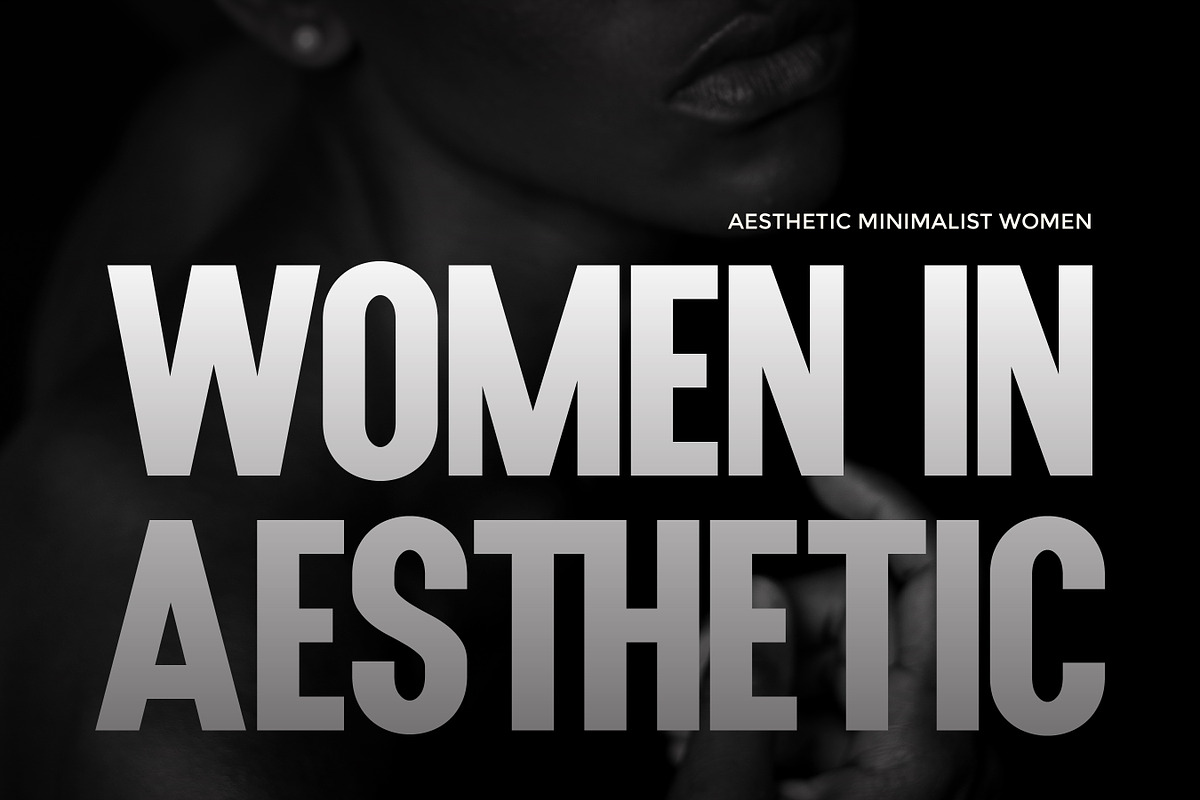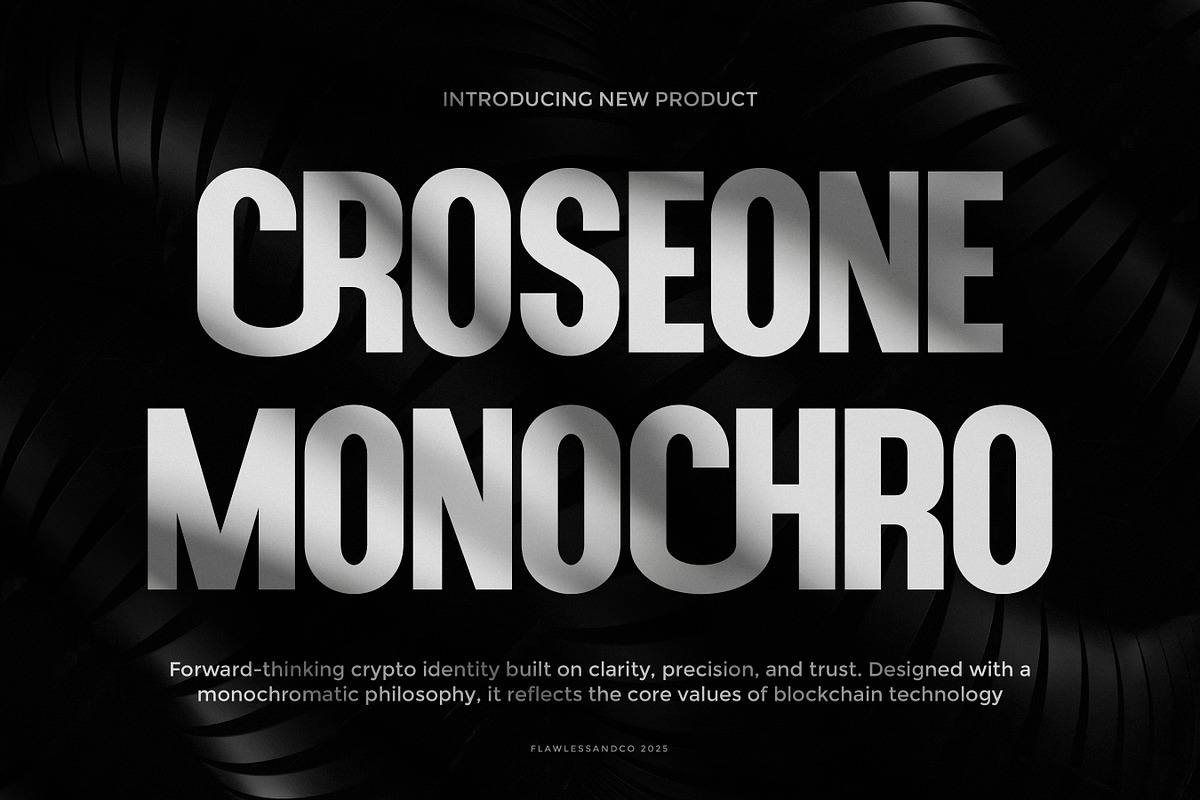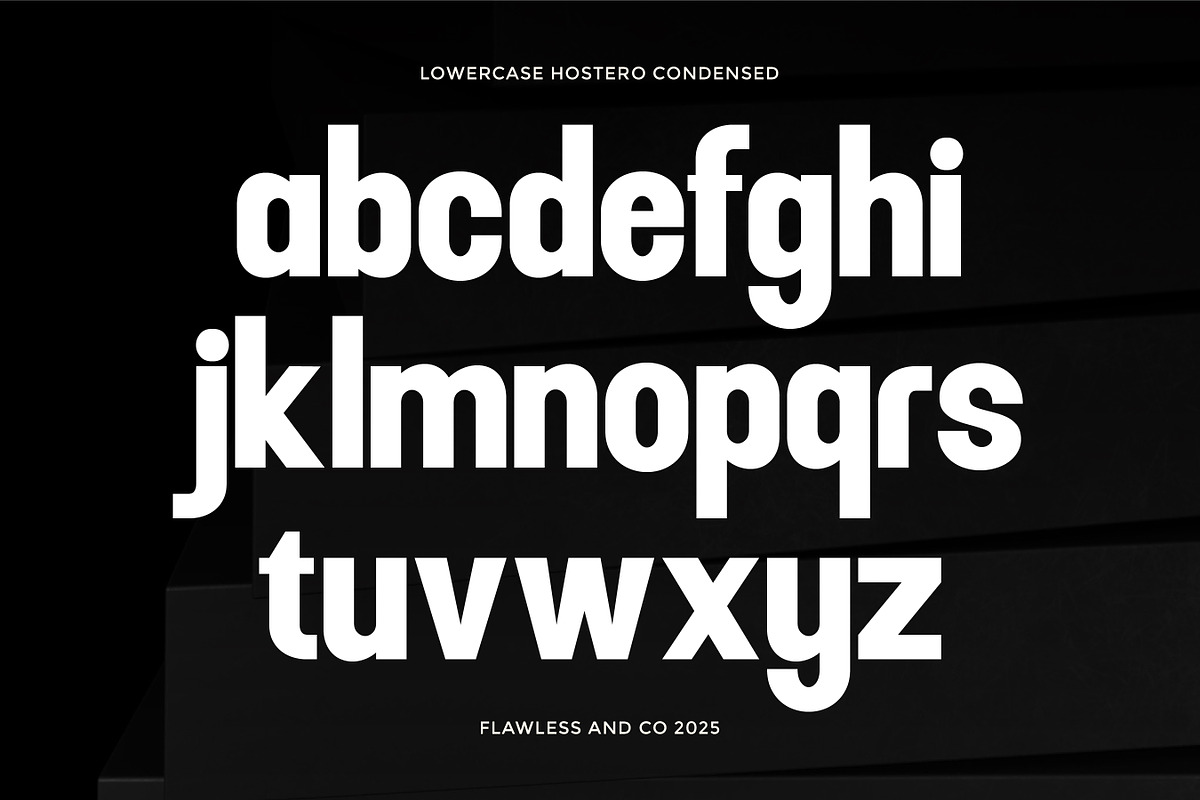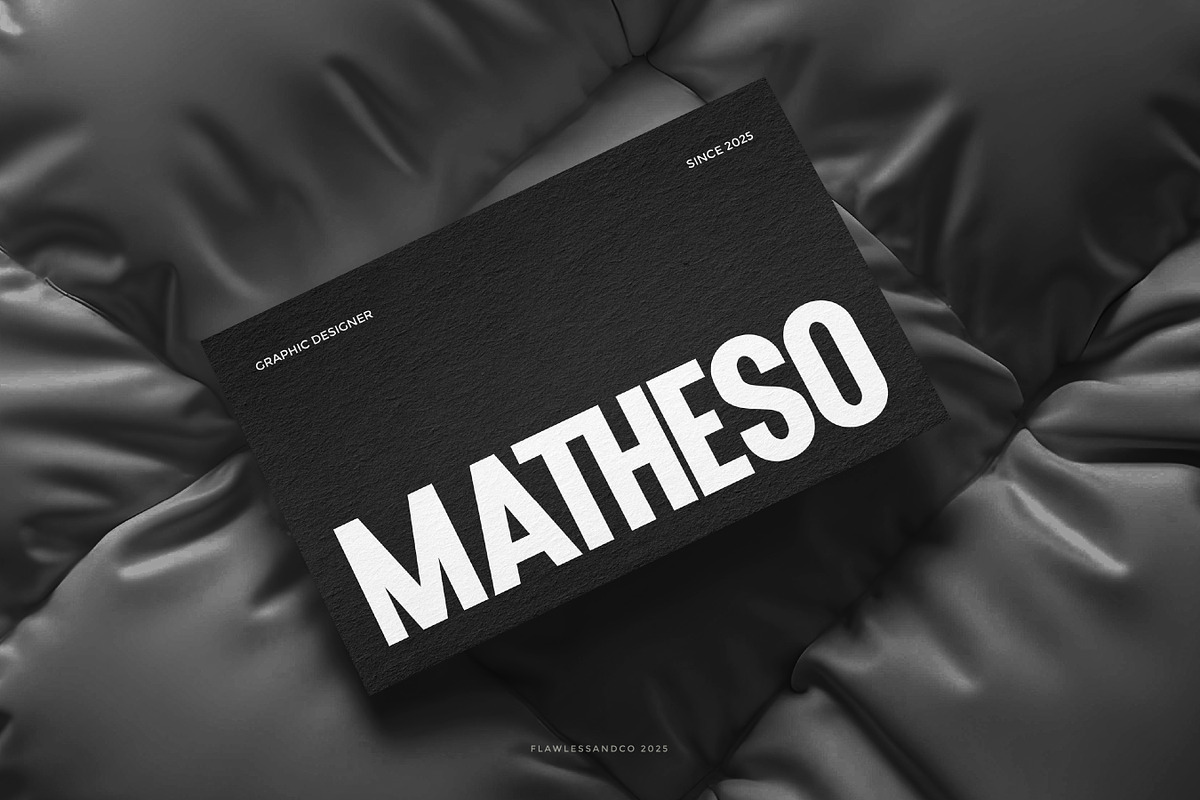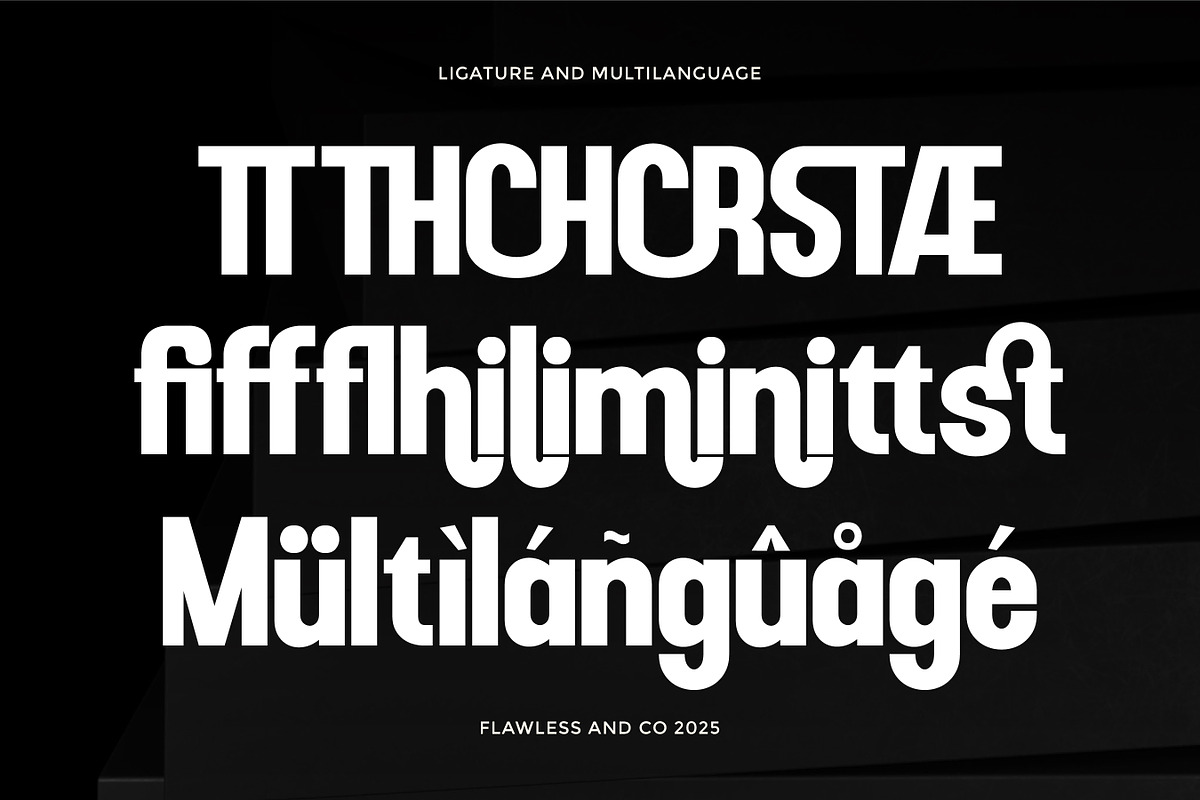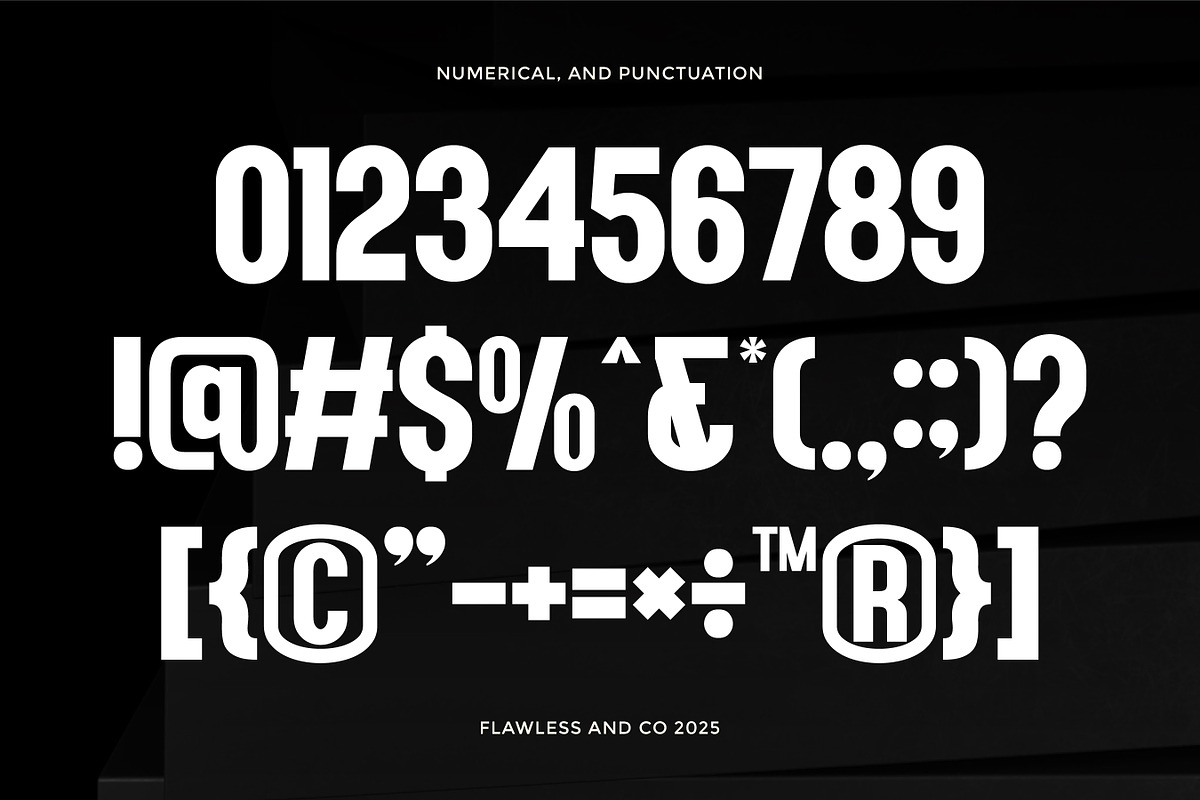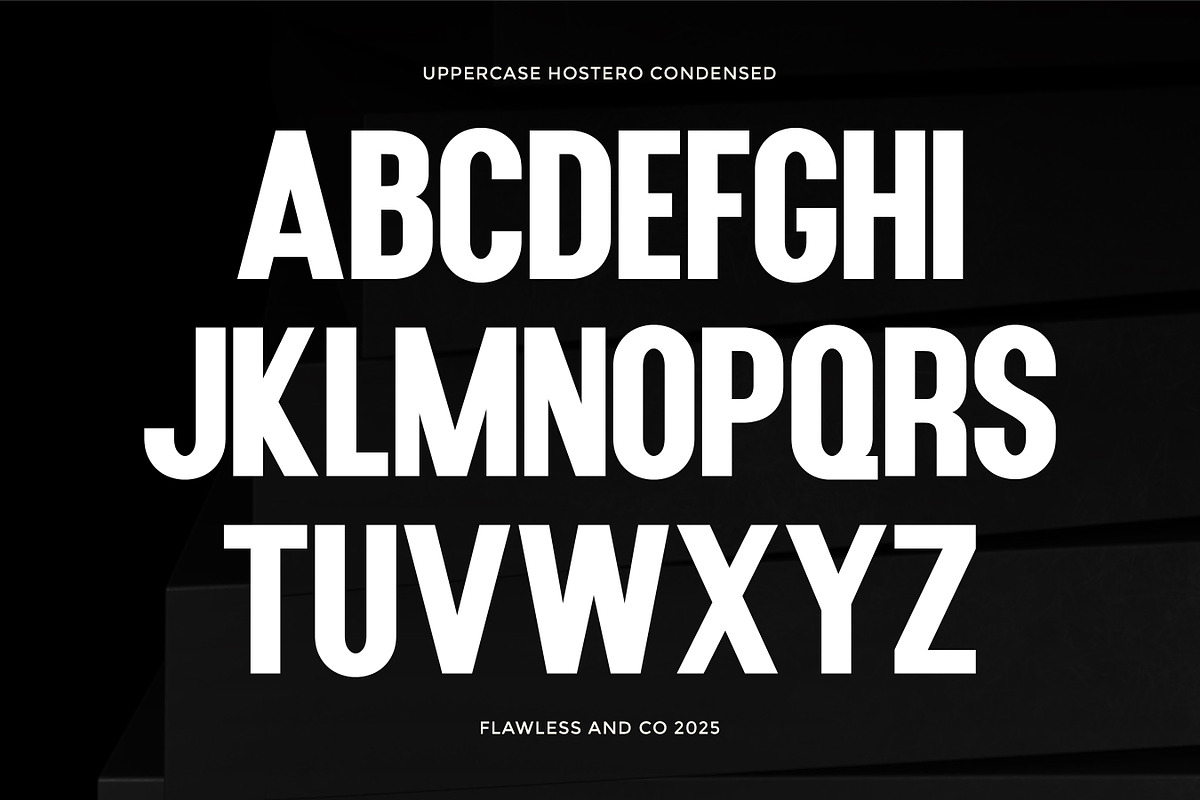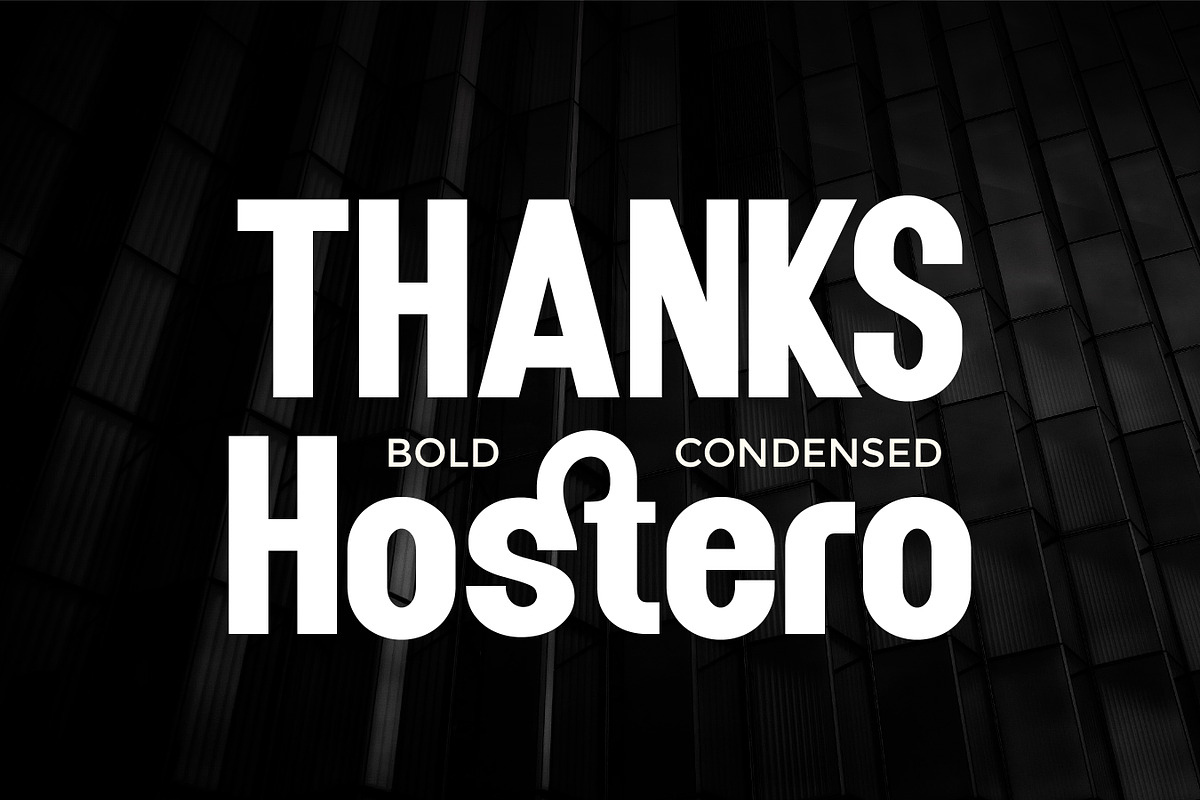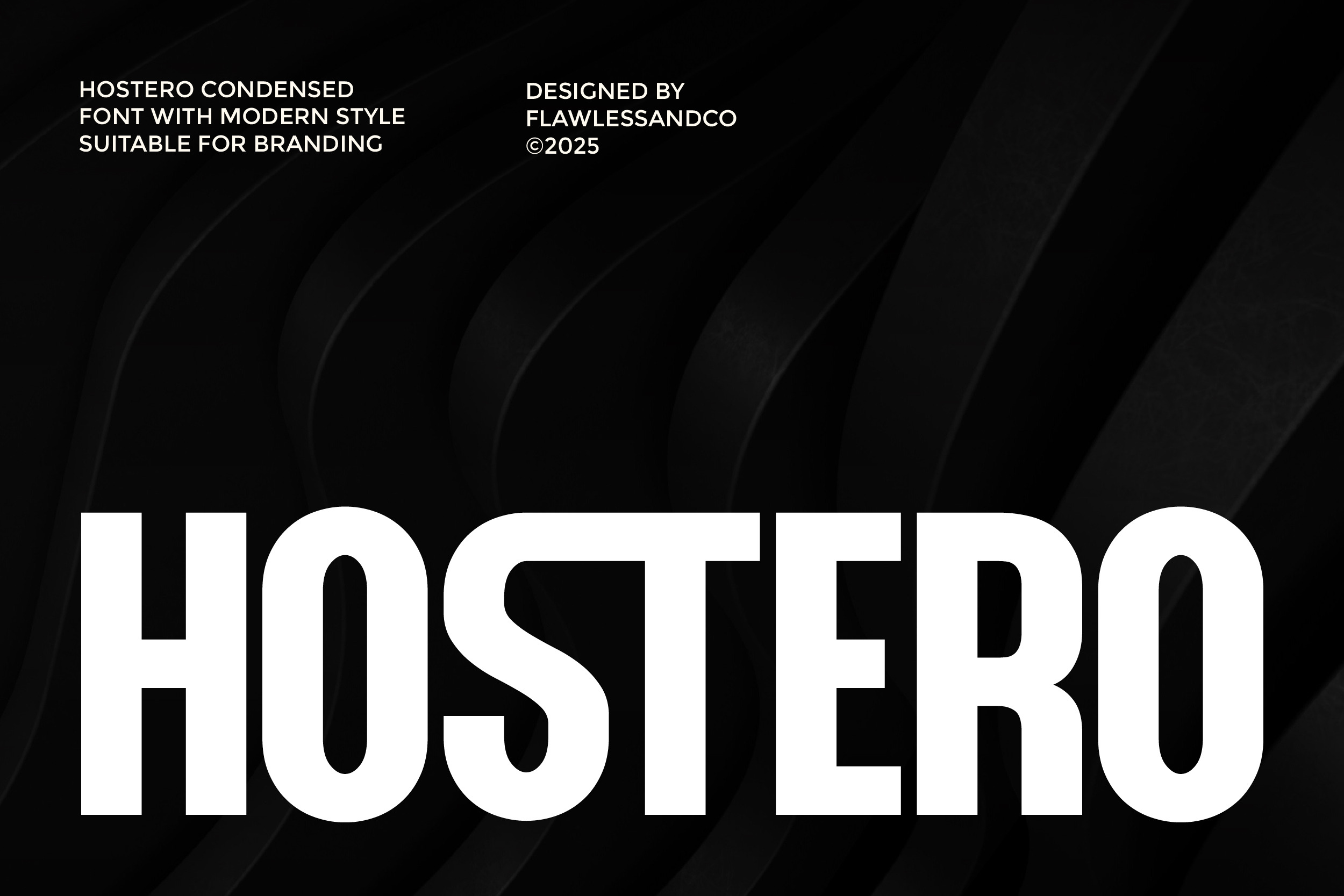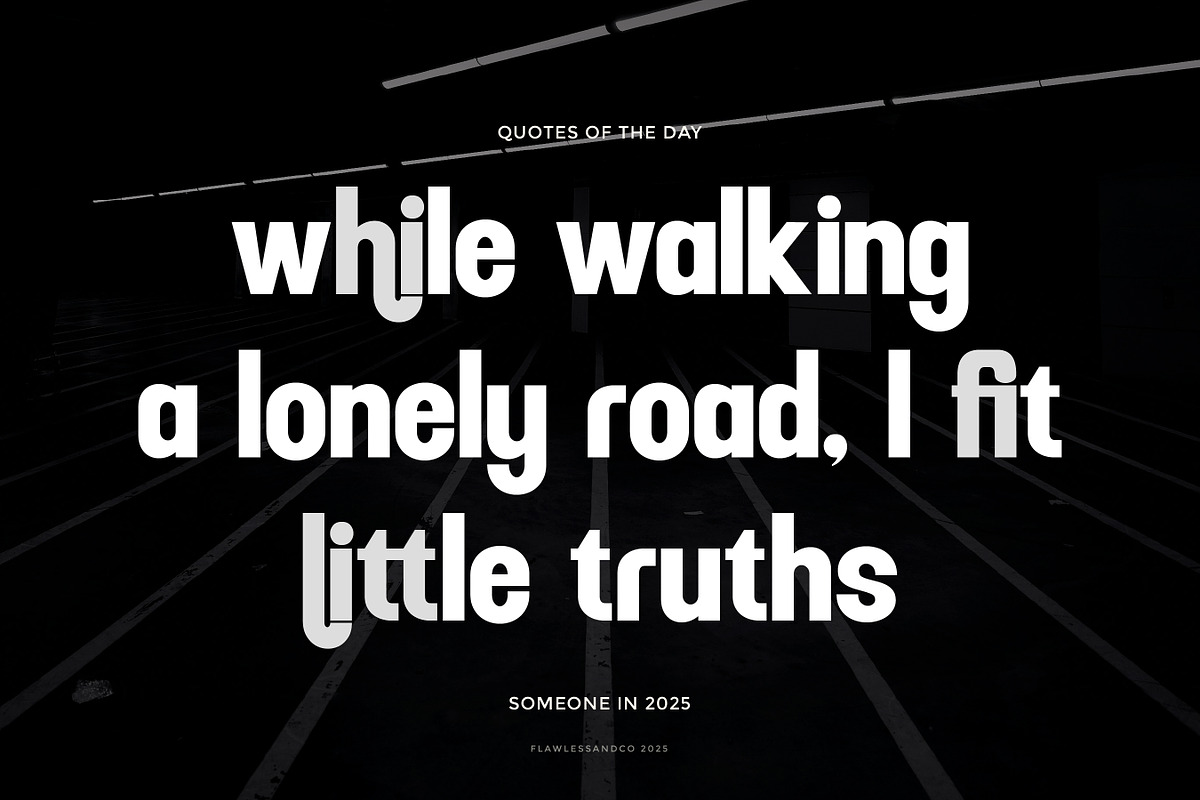
Hostero - Condensed Sans Serif Font
Hostero is a modern condensed sans serif font designed to deliver strong visual impact with a clean, contemporary feel. Its tall proportions and compact width make it perfect for space-efficient layouts while maintaining excellent readability and a bold presence. Crafted with a modern branding mindset, Hostero works exceptionally well for designs that demand clarity, confidence, and a professional edge.
Why Choose Hostero?
Hostero features a modern condensed sans serif style with a strong, bold, and clean appearance. Its space-saving letterforms make it ideal for efficient layouts, while maintaining excellent readability in headlines and branding. Designed to feel modern and professional, Hostero is a reliable choice for impactful visual communication.
Suitable For
- Branding and visual identity
- Logos and wordmarks
- Posters and advertising materials
- Headlines and editorial layouts
- Packaging and product branding
- Social media and digital graphics